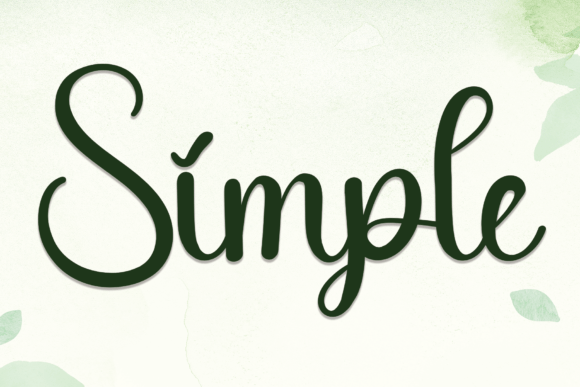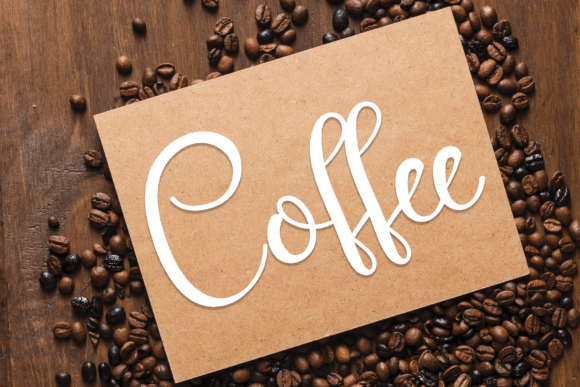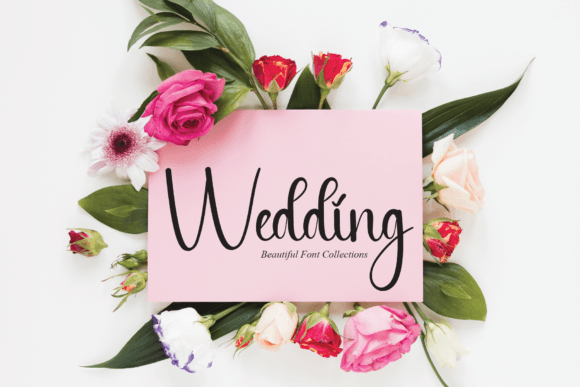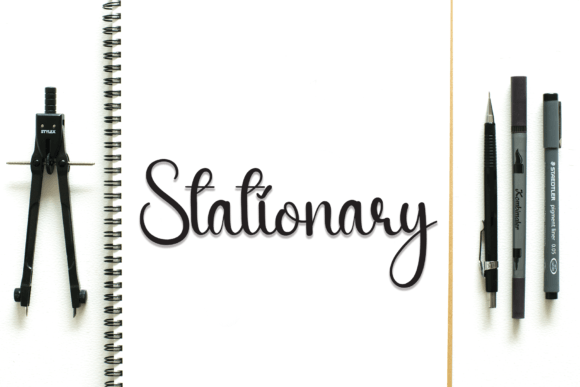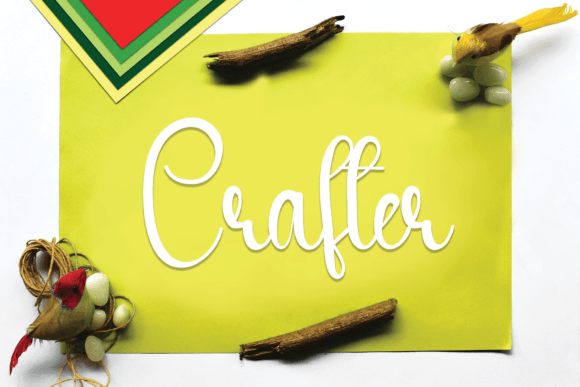
Simple Font
Add a warm and approachable touch to your creative projects with the Simple font. This handwritten script is designed to be friendly and easy to use. Whether you’re crafting, designing digitally, preparing presentations, or creating greeting cards, this font can quickly become your favorite.
The Simple font offers a clean and natural style. Its balanced strokes and clear characters make it highly readable. This makes it perfect for both casual and formal projects, adding a personal and inviting feel to your designs.
Each character in the Simple font is crafted with care to ensure clarity and charm. The smooth and elegant strokes create a harmonious look that enhances your creative work. It’s ideal for headlines, quotes, invitations, and decorative text.
Despite its friendly and straightforward design, the Simple font remains clear and legible at various sizes. Whether used for bold titles or subtle accents, it adds warmth and clarity to your projects.
Using this font will help your designs stand out with a memorable and inviting style. If you want your creative work to feel approachable and polished, the Simplefont is an excellent choice.
In summary, the Simplefont suits a wide range of creative needs. From crafts and presentations to greeting cards and digital designs, it brings warmth and friendliness. Download it today and create lovely, versatile designs with this handwritten script.